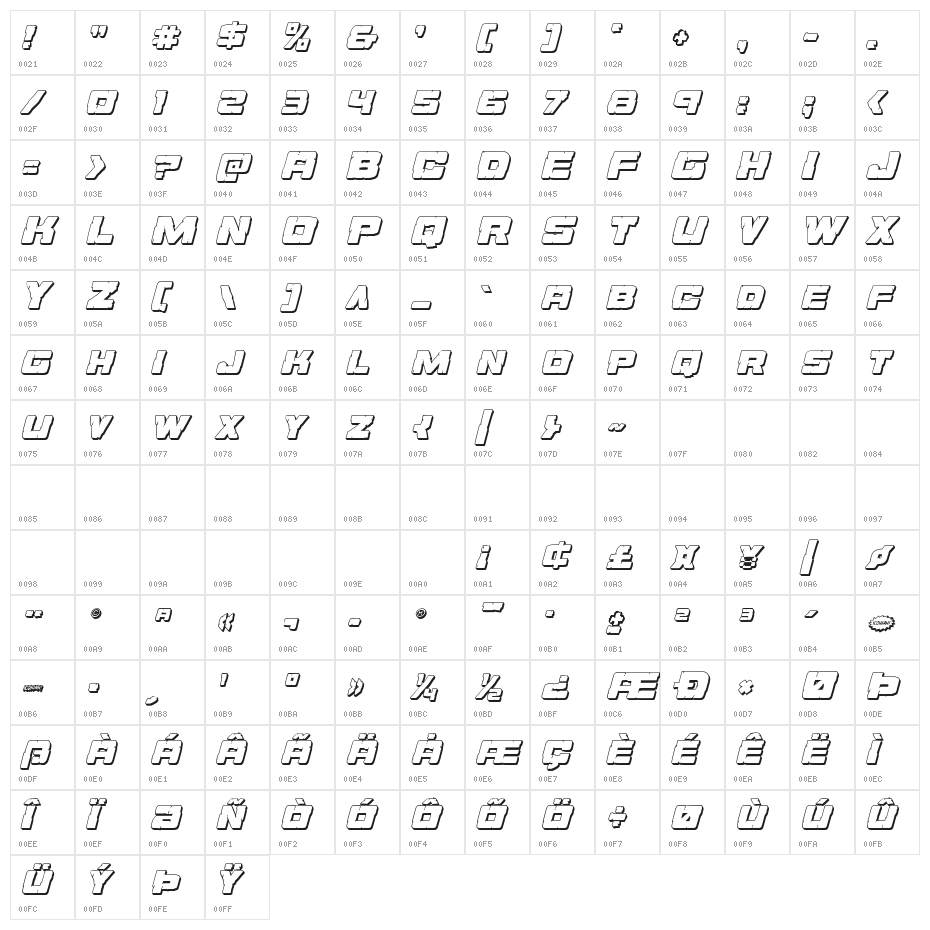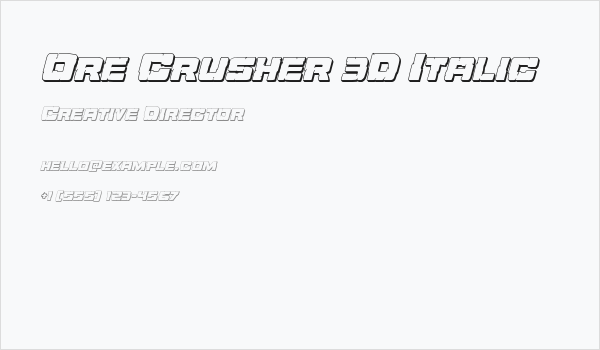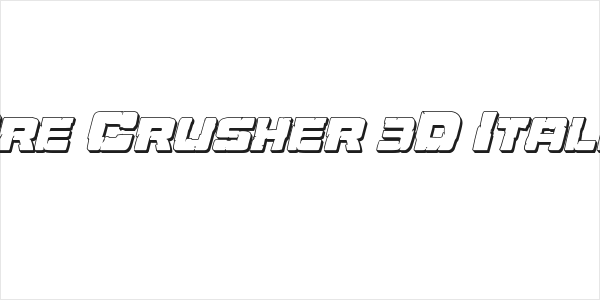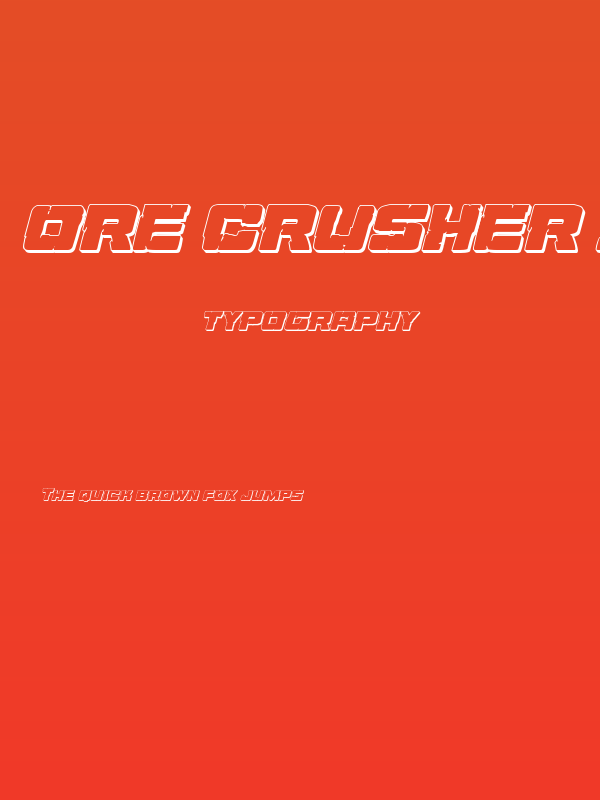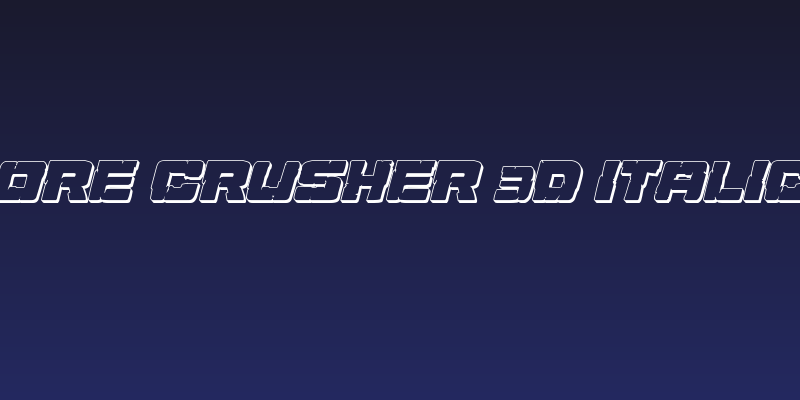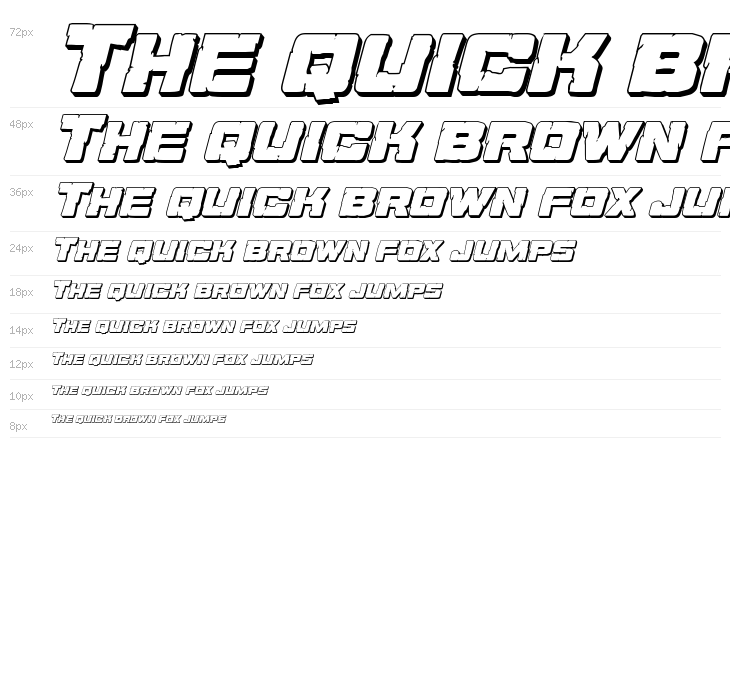
Ore Crusher 3D Italic Font
Ore Crusher 3D Italic Description
This font features a bold, three-dimensional design with an italic slant, giving it a dynamic and futuristic appearance. The characters are outlined with a thick border, enhancing the 3D effect and making each letter stand out prominently. The style is reminiscent of industrial or technological themes, suitable for projects that require a strong visual impact. The uppercase and lowercase letters maintain a consistent style, with numerals and special characters following the same design principles. This font is ideal for creating eye-catching headlines, posters, or branding materials that need a modern and edgy look.
| Proposed Projects | Ideal for technology-themed posters, video game titles, branding, and advertisements. |